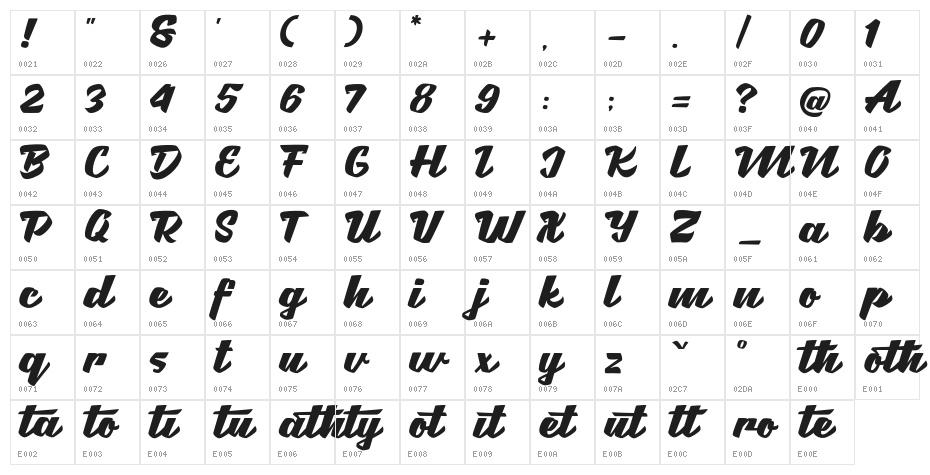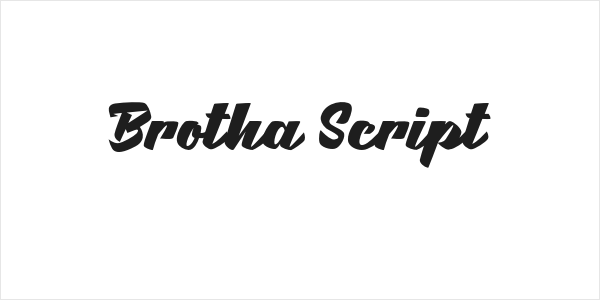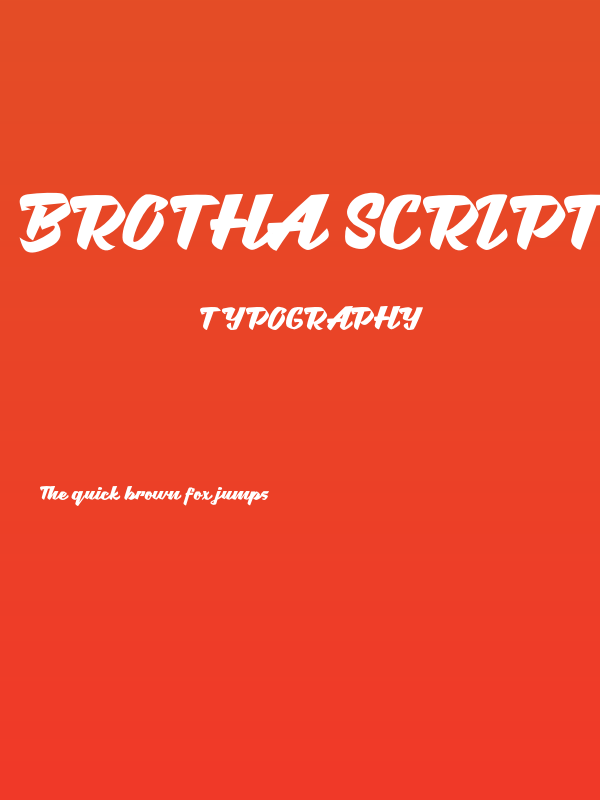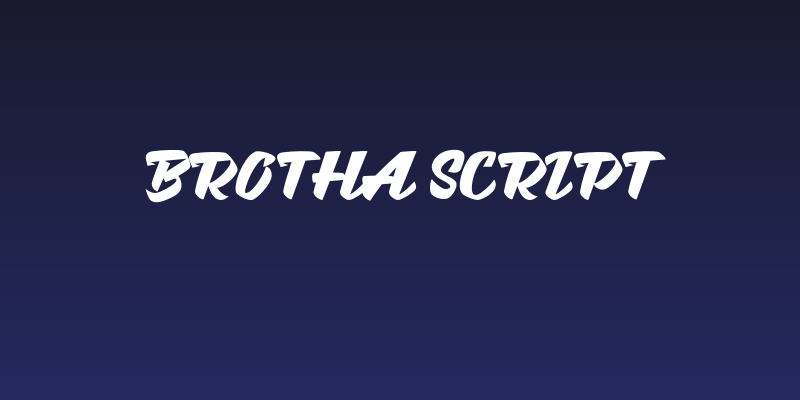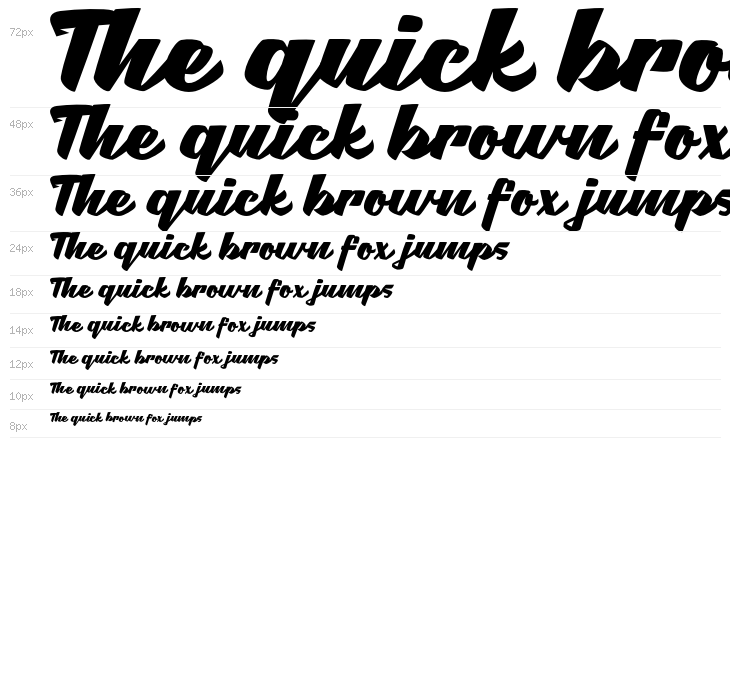
Brotha Script Font
Brotha Script Description
This font features a bold, dynamic script style with a strong presence. The characters are connected in a fluid manner, giving it a handwritten appearance. The uppercase letters are prominent and slightly slanted, while the lowercase letters maintain a consistent flow. The numbers and special characters are equally bold, matching the overall aesthetic. The strokes are thick, providing a high contrast that enhances readability and impact. This font is ideal for creating eye-catching designs that require a personal touch.
| Proposed Projects | Perfect for branding, logos, posters, and invitations where a personal, impactful touch is desired. |